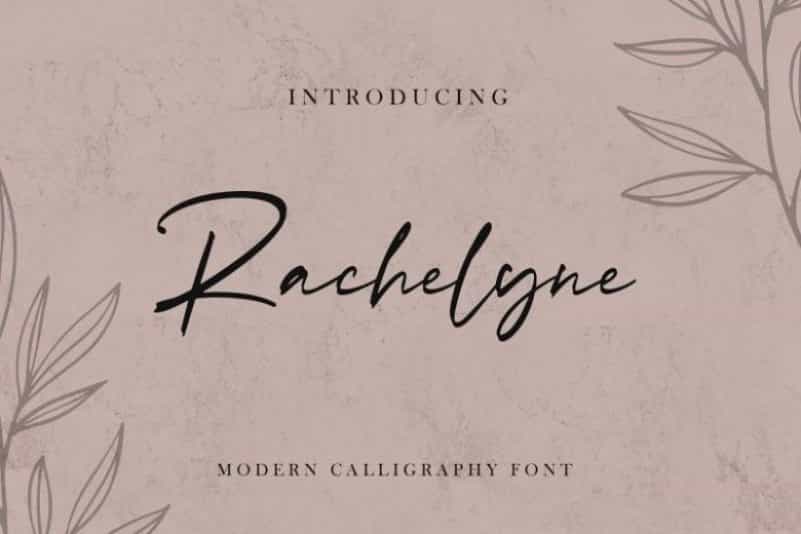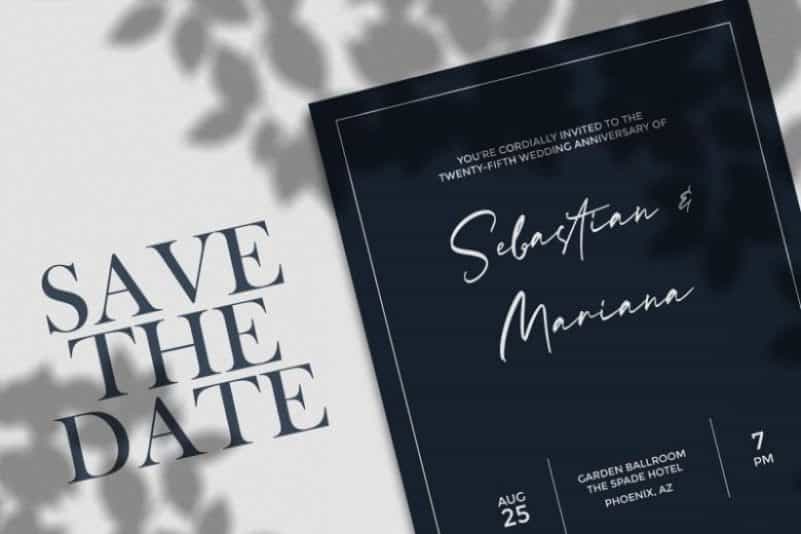
Rachelyne is a Calligraphy Script Font with the Casual Style. This font is spot on for fashion brand, wedding invitation, business card, logo brand, signature and also calligraphy. This Font Template has the Classy, Elegant, Creative, Cool and Unique Concept.